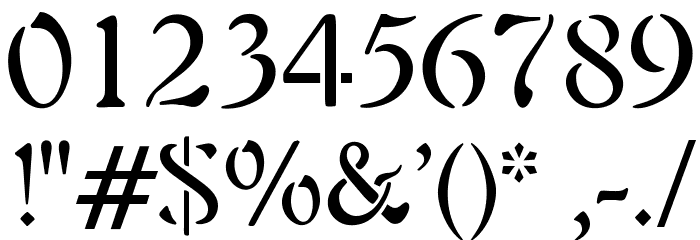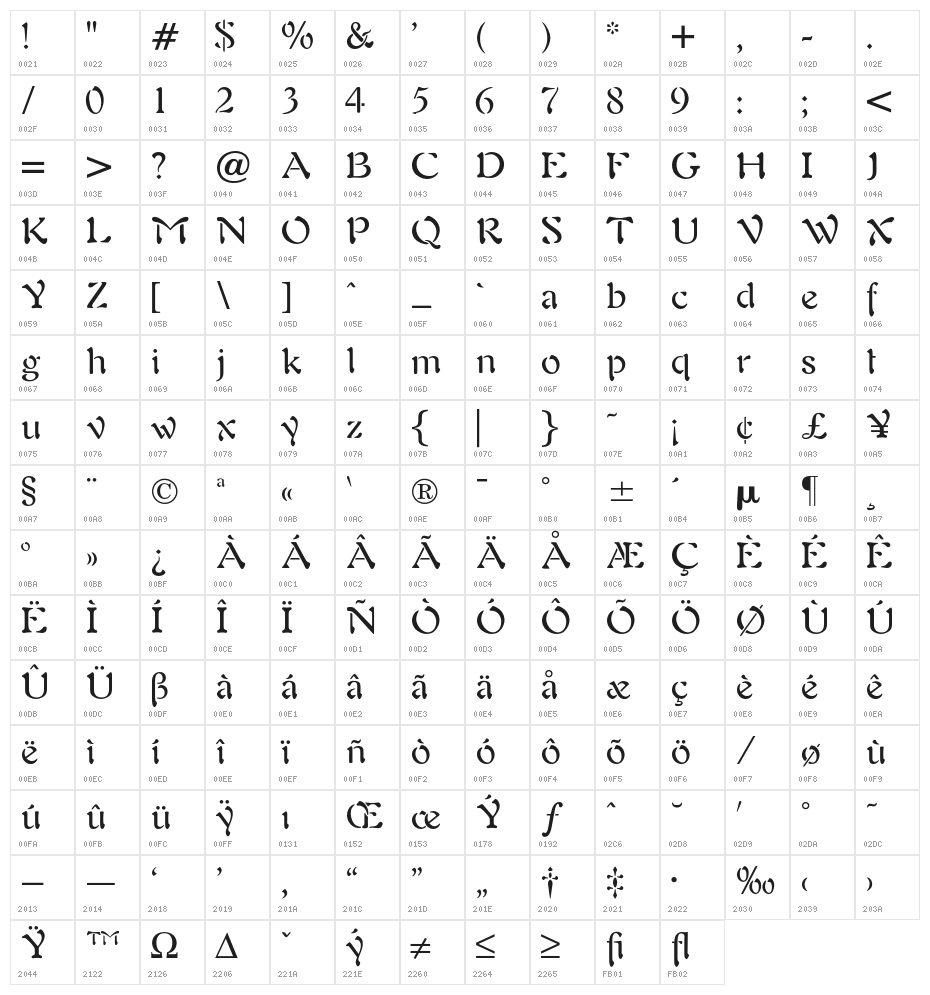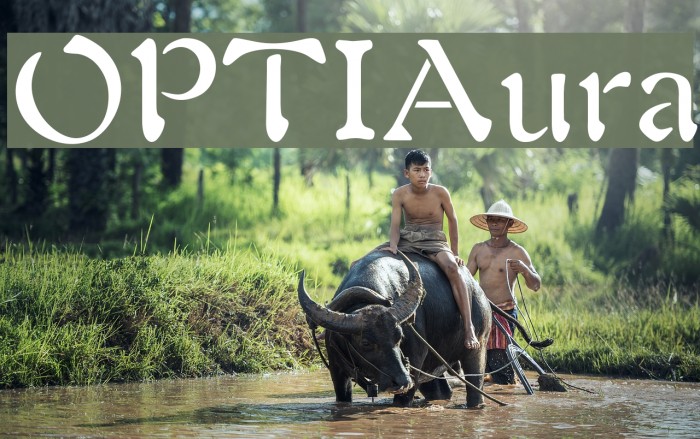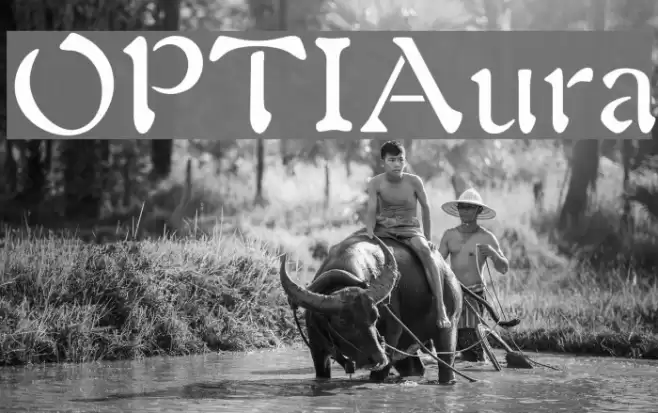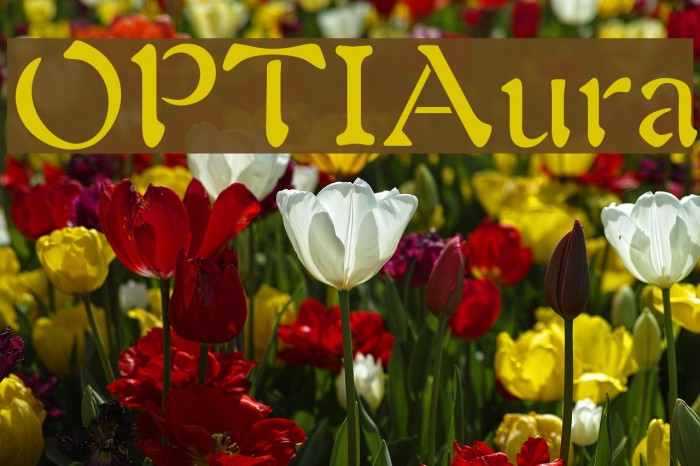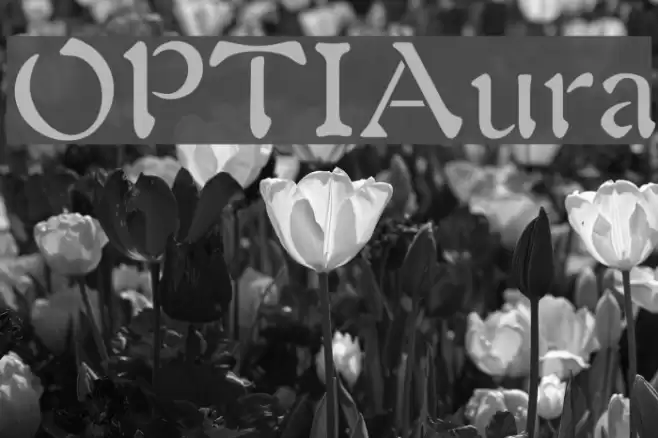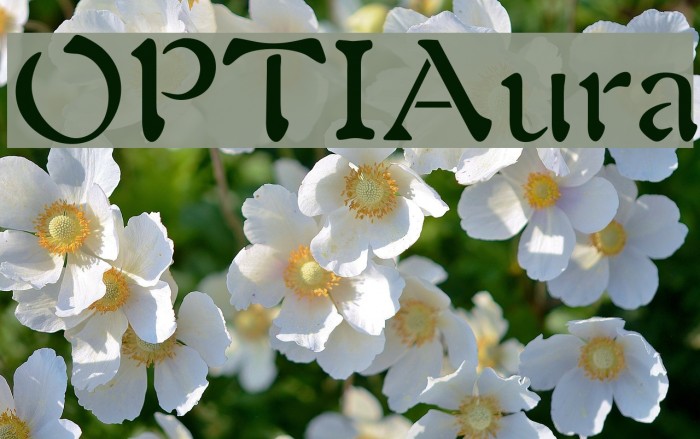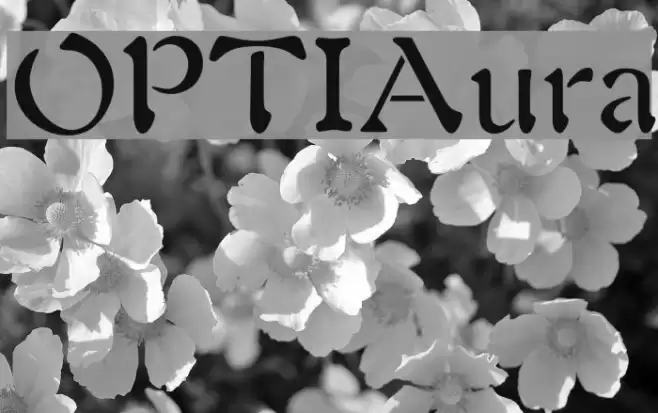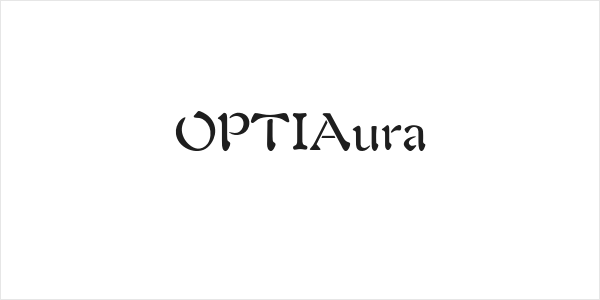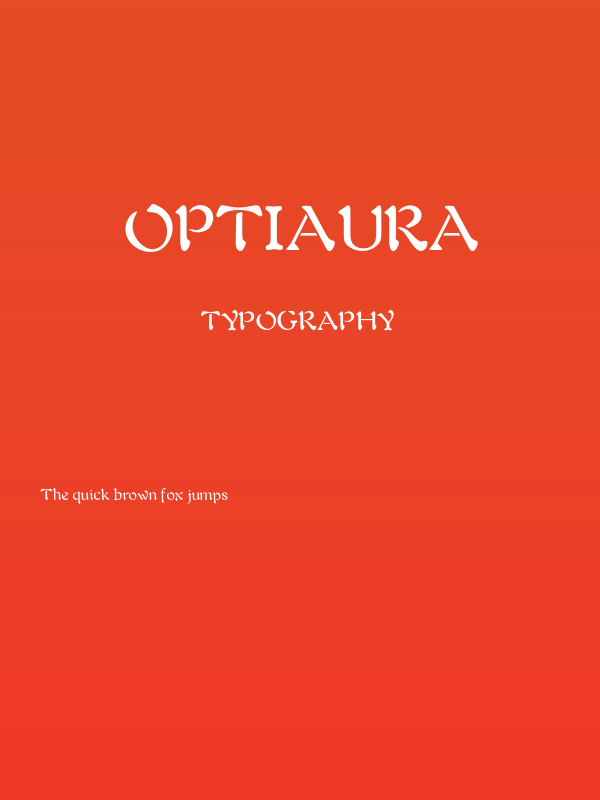
OPTIAura Font
OPTIAura Description
This font features a unique blend of traditional and modern elements, characterized by its sharp, angular serifs and smooth curves. The uppercase letters exhibit a strong presence with their bold strokes and distinctive flair, while the lowercase letters maintain a harmonious balance with a slightly more subdued appearance. The numerals are elegantly crafted, offering a consistent style that complements the alphabet. Special characters are thoughtfully designed, ensuring versatility across various applications. The overall aesthetic is both sophisticated and approachable, making it suitable for a wide range of design projects.
| Proposed Projects | Ideal for branding, editorial design, book covers, and luxury product packaging. |